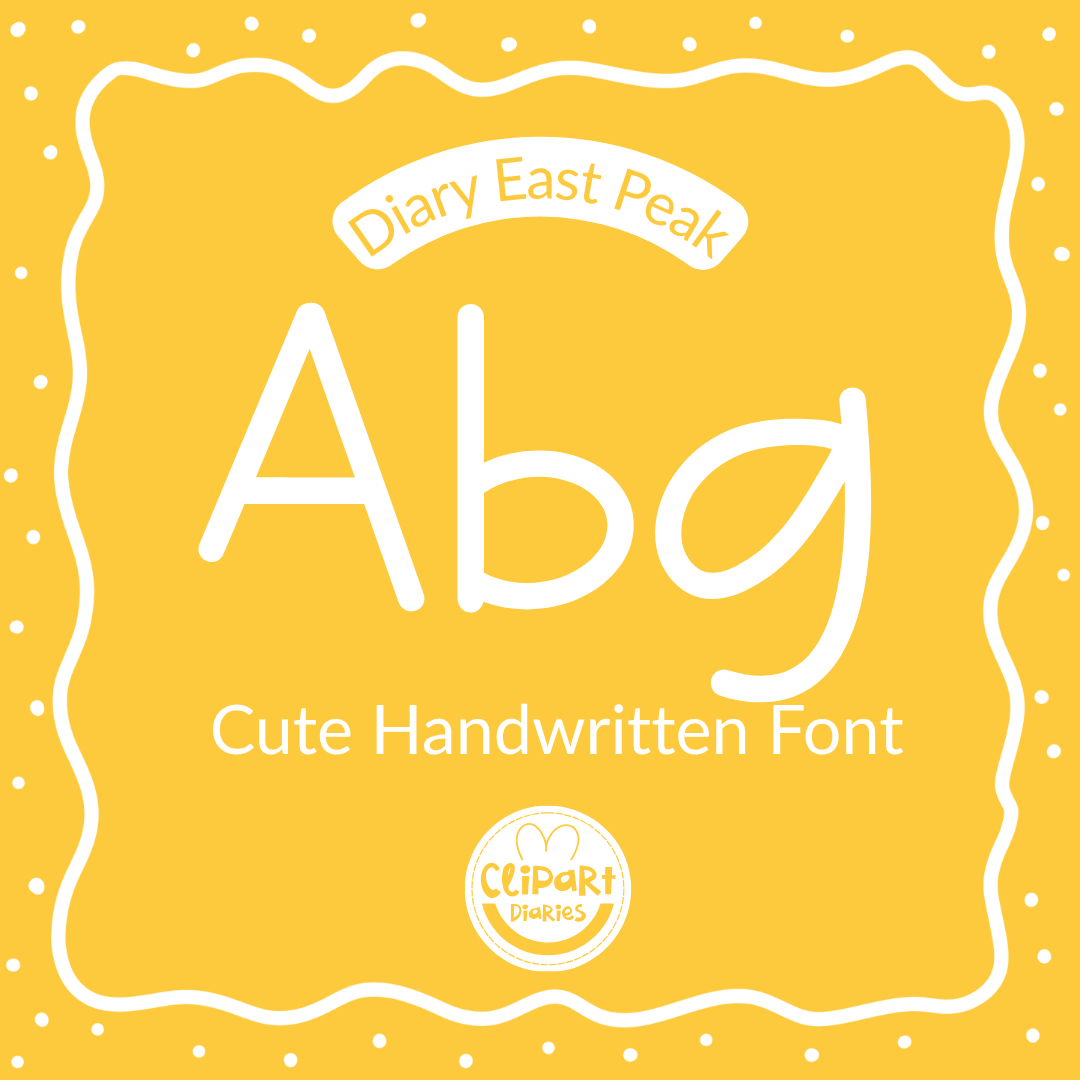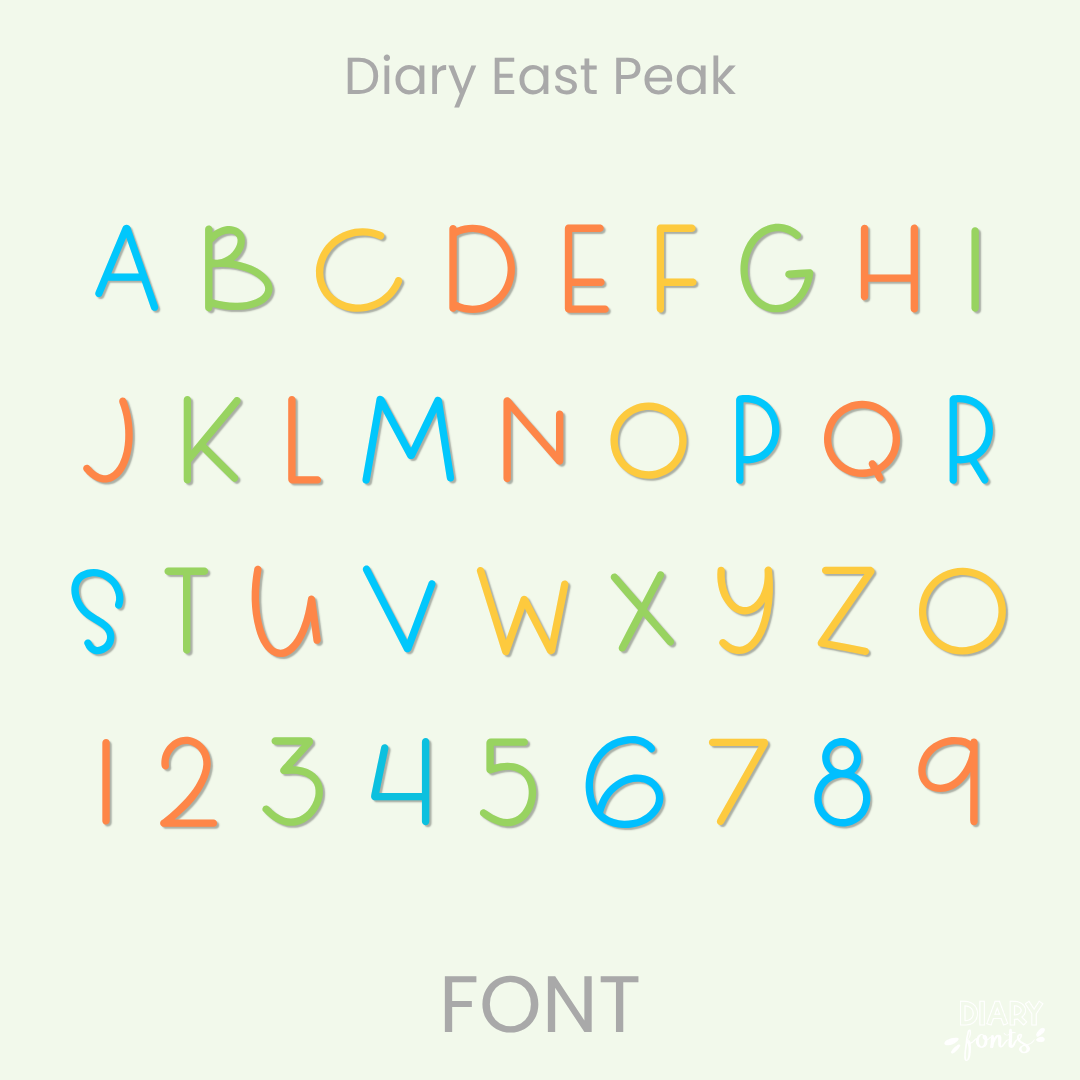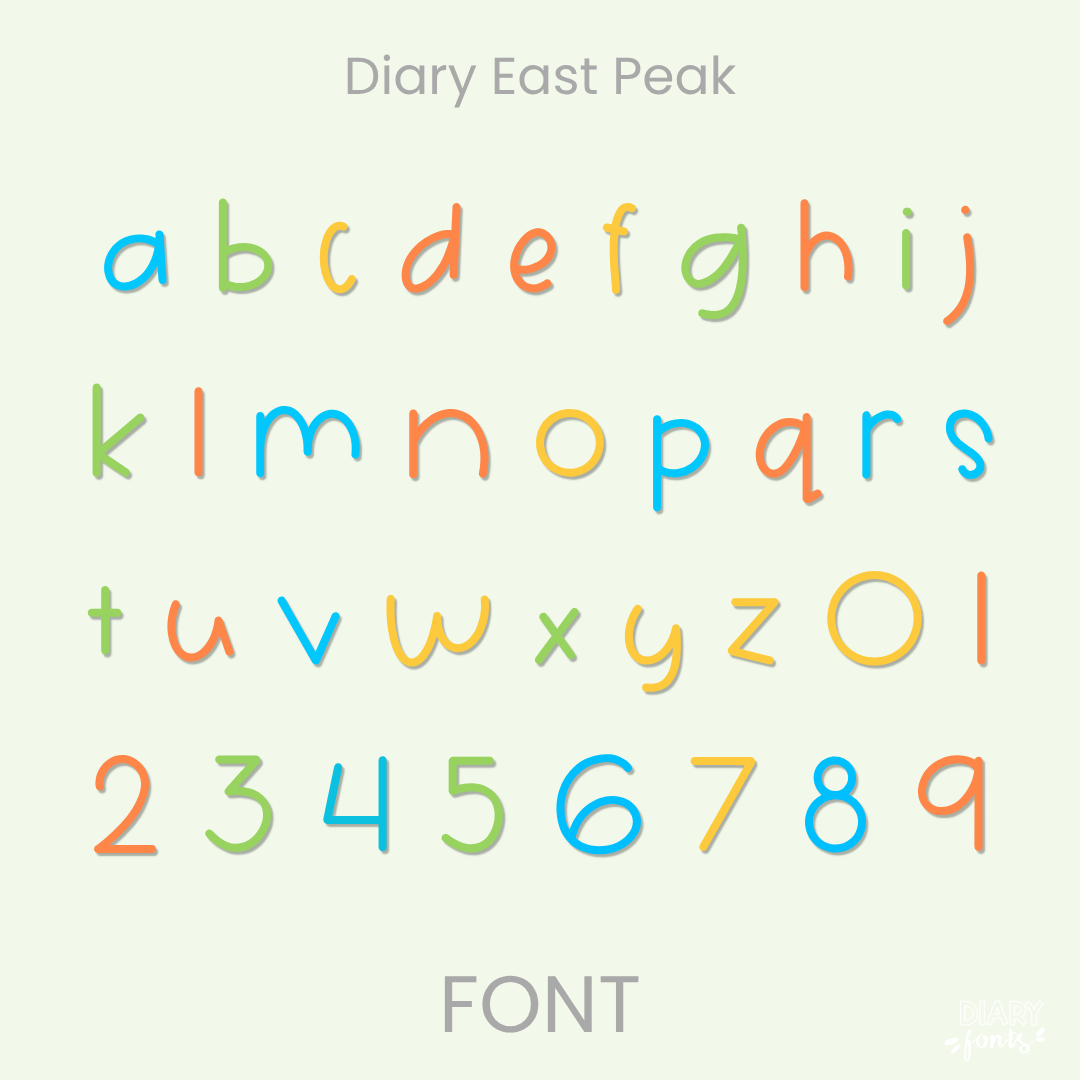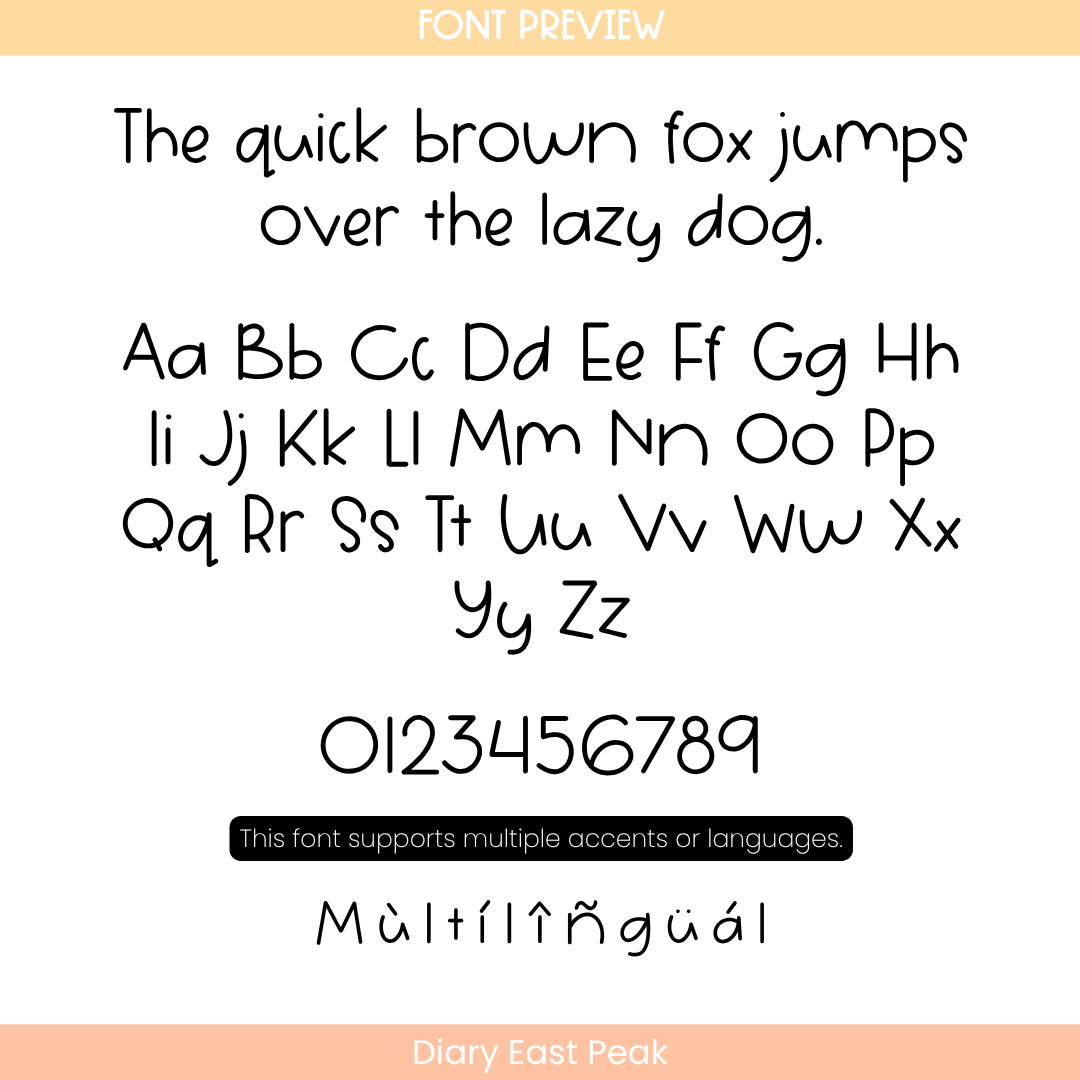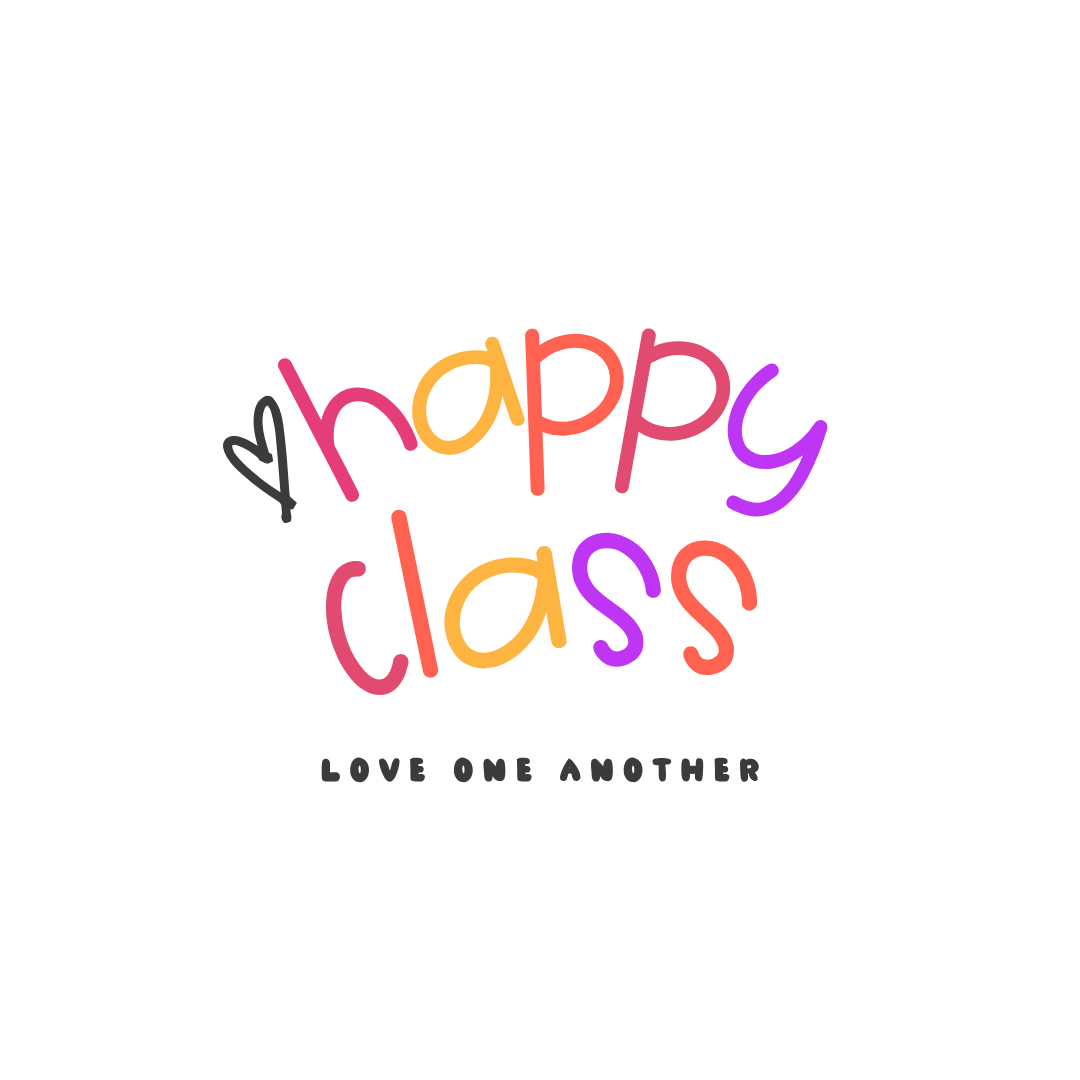
If you want to give your projects a warm and welcoming look, Diary East Peak is an excellent choice. It features light, bouncy handwritten characters with natural imperfections and a delightful variation in letter heights, giving it a true, authentic handwriting style. While keeping its fun and carefree personality, it remains exceptionally clear and easy for students to read. This makes it an ideal choice for primary worksheets, morning meeting slide decks, classroom labels, and creative project headers. The font includes a full set of uppercase and lowercase letters, numbers, and multiple accents to support different languages. It is ready for use in Canva, MS Office, and Adobe Apps, and it works perfectly with iPad apps like GoodNotes and Procreate. Whether for personal classroom designs or commercial teacher resources, this font adds a soft and approachable aesthetic to your work.